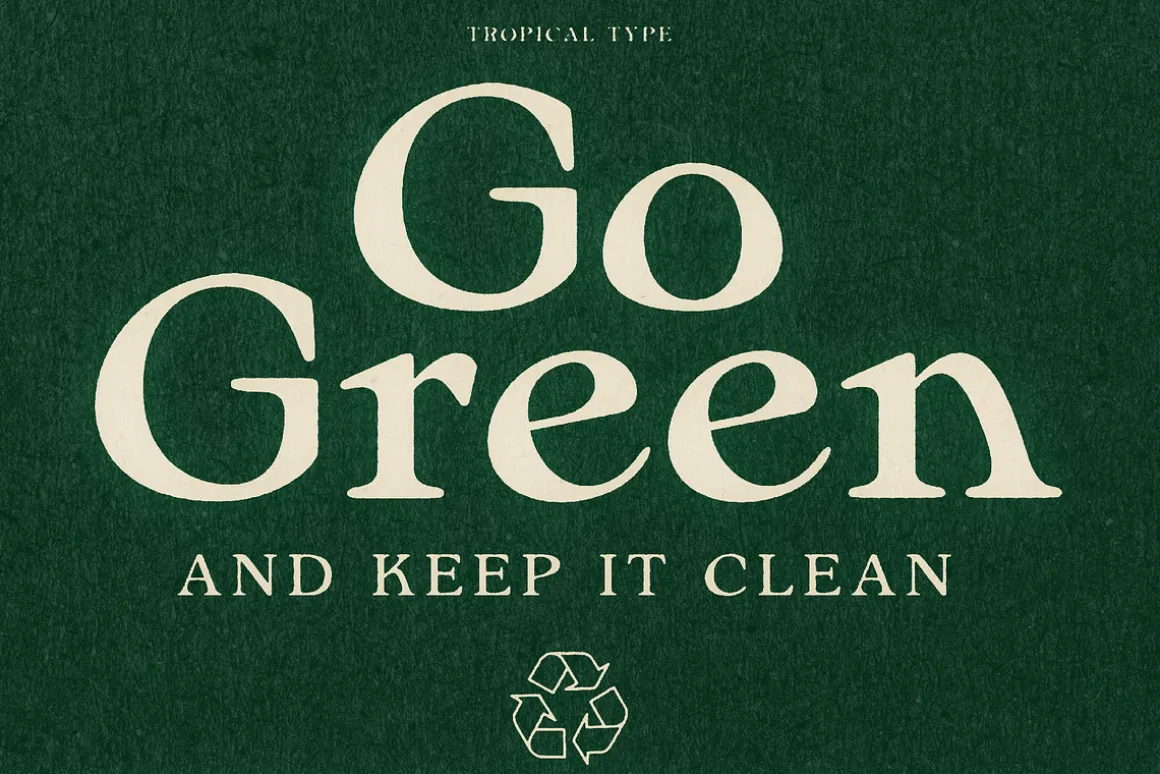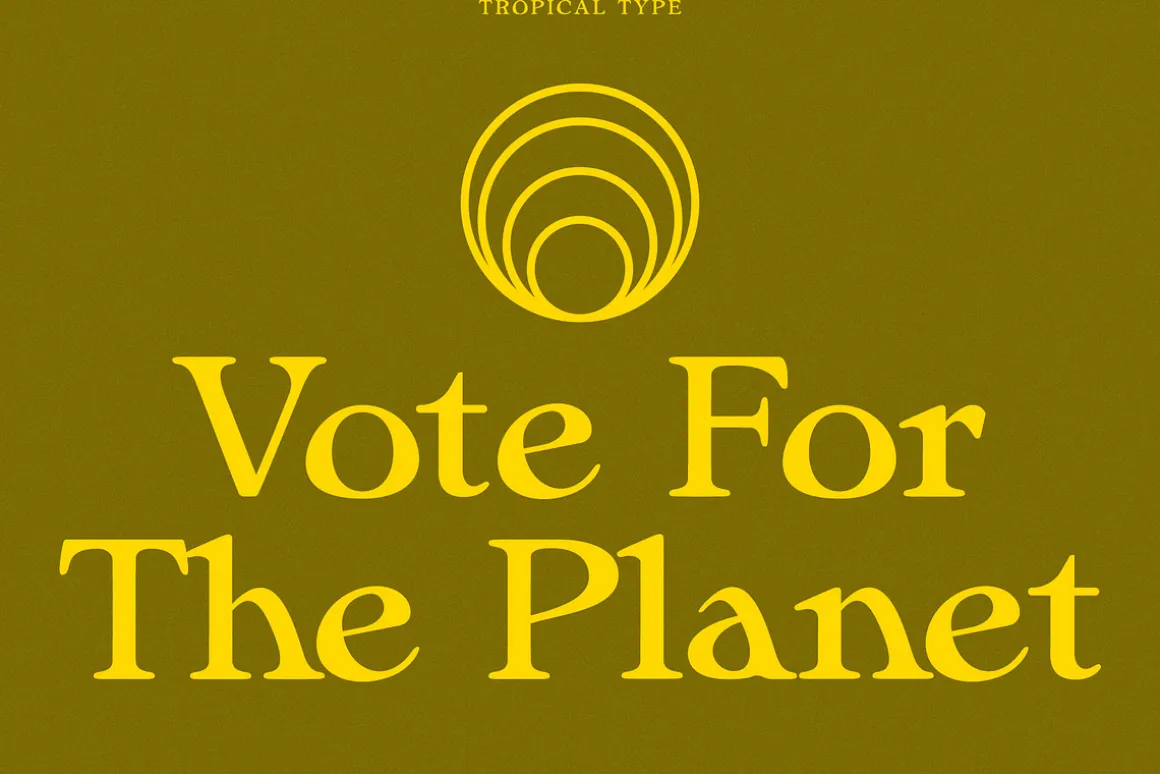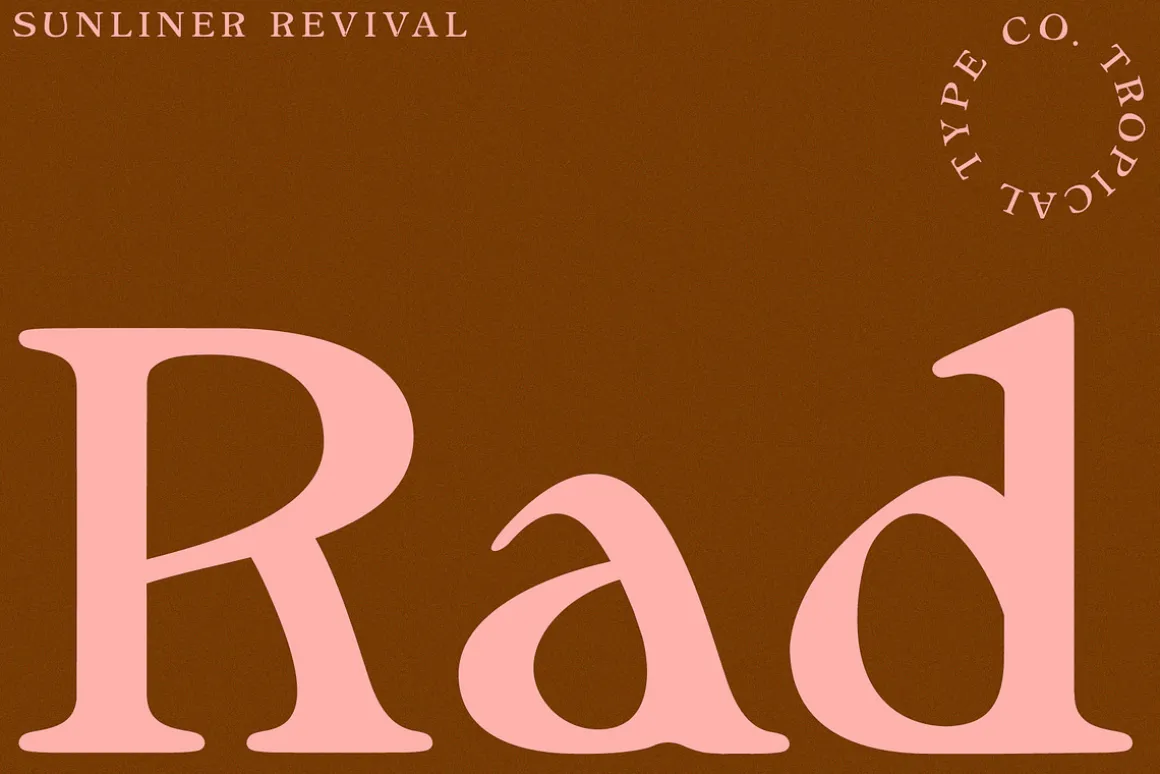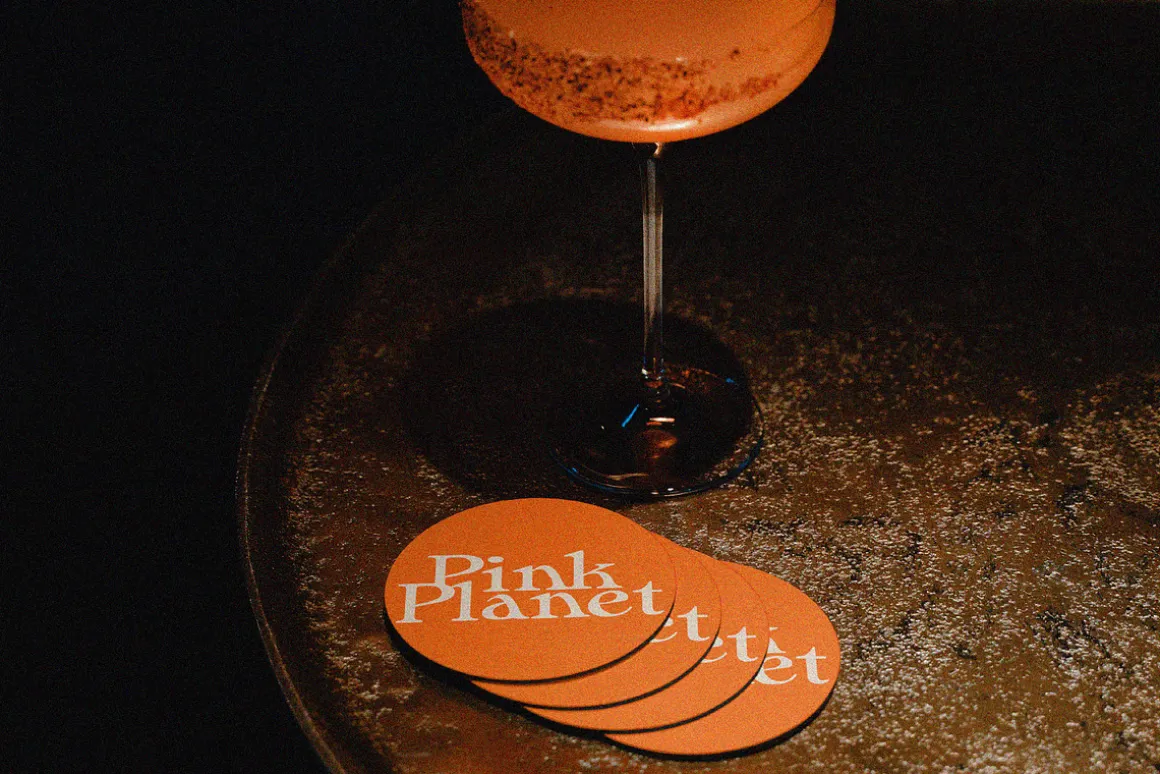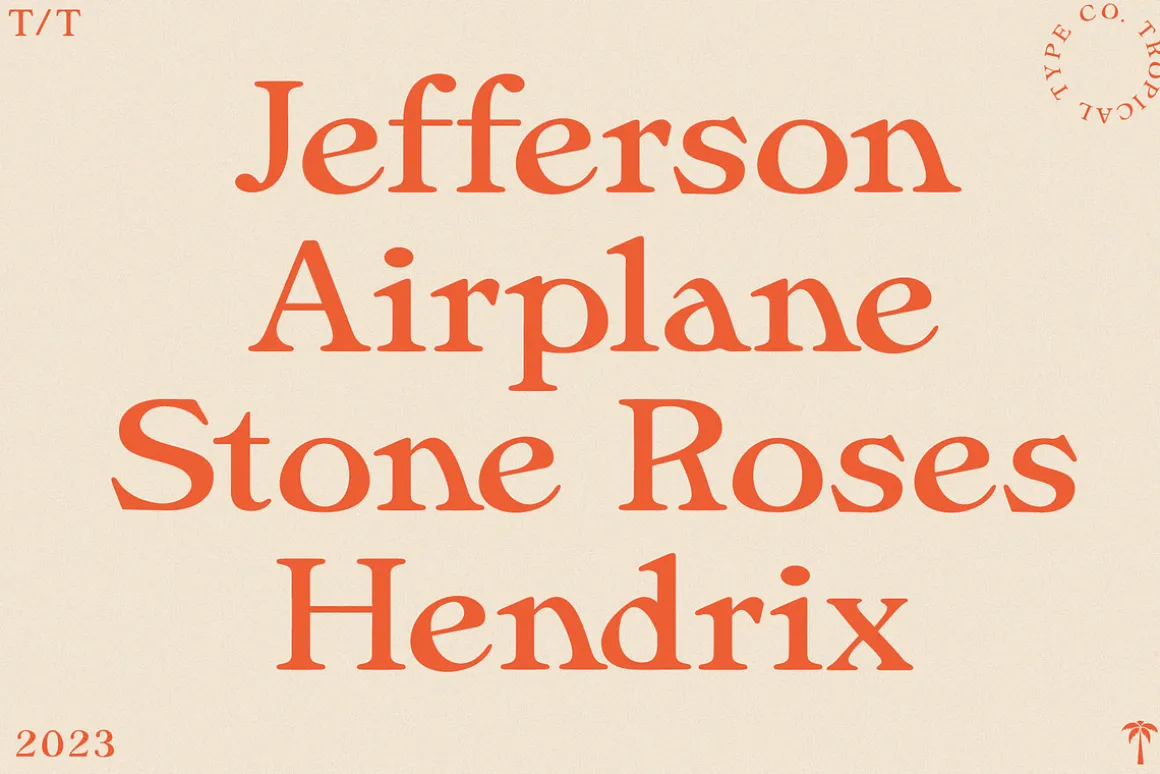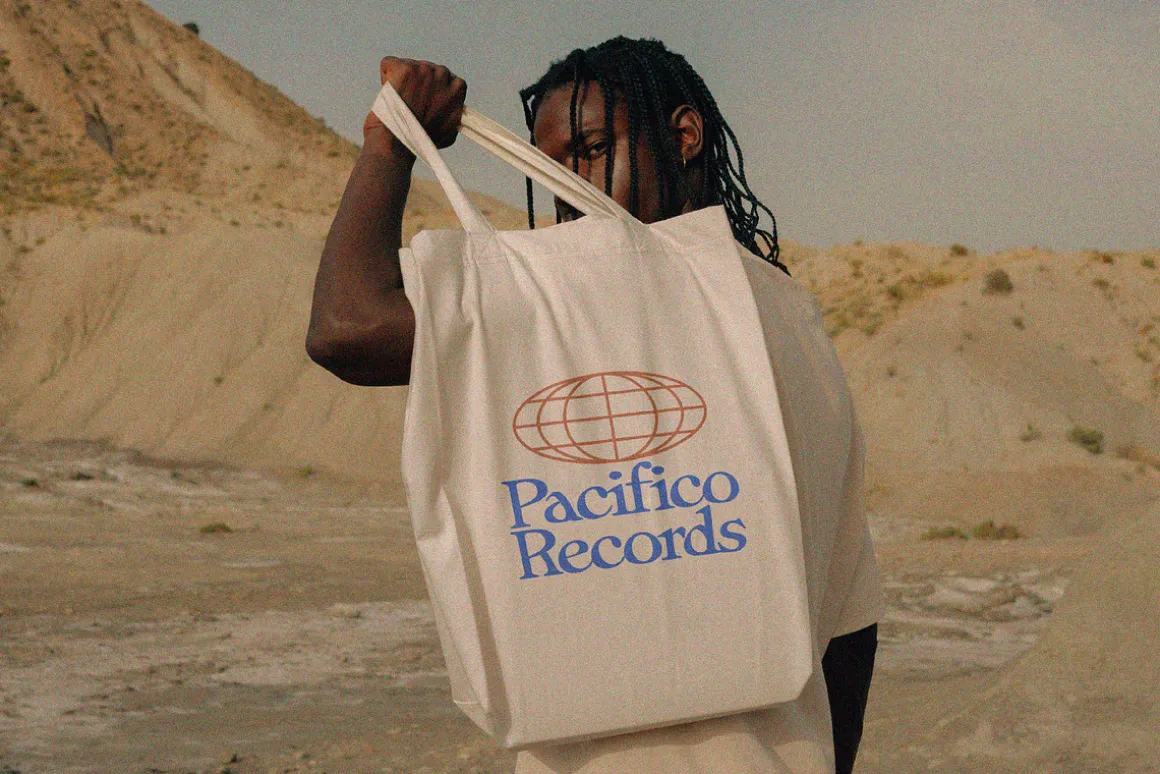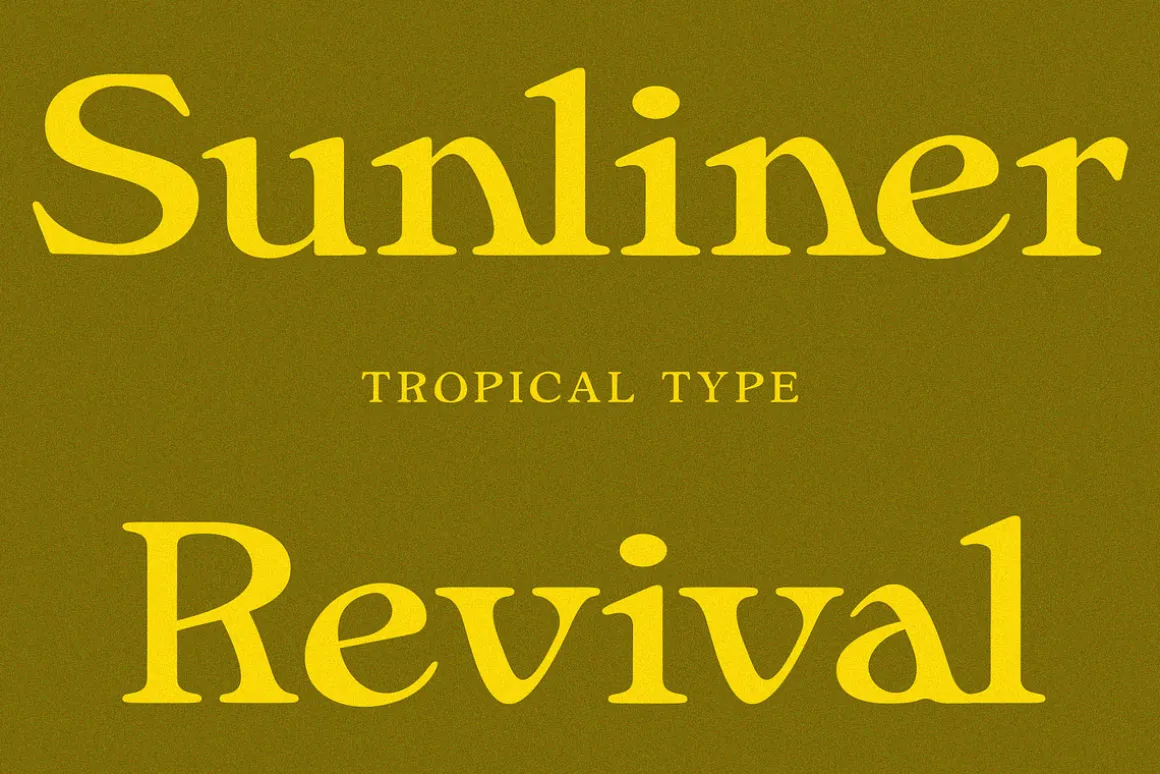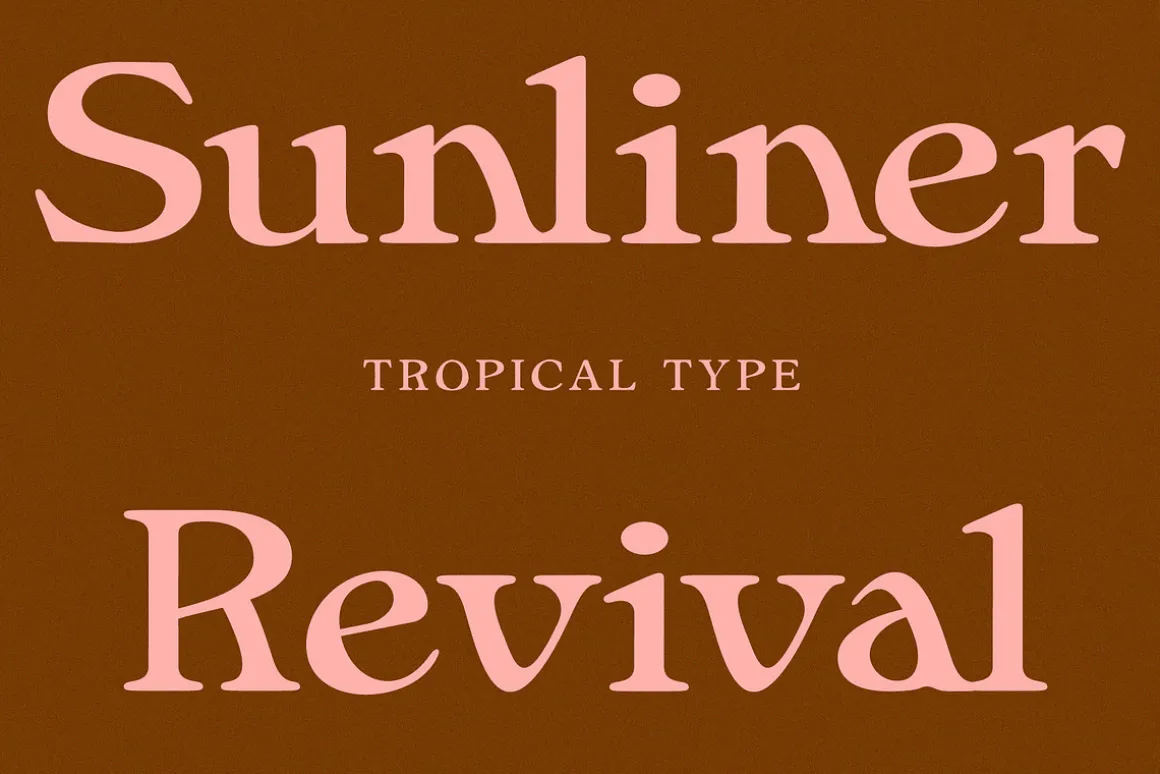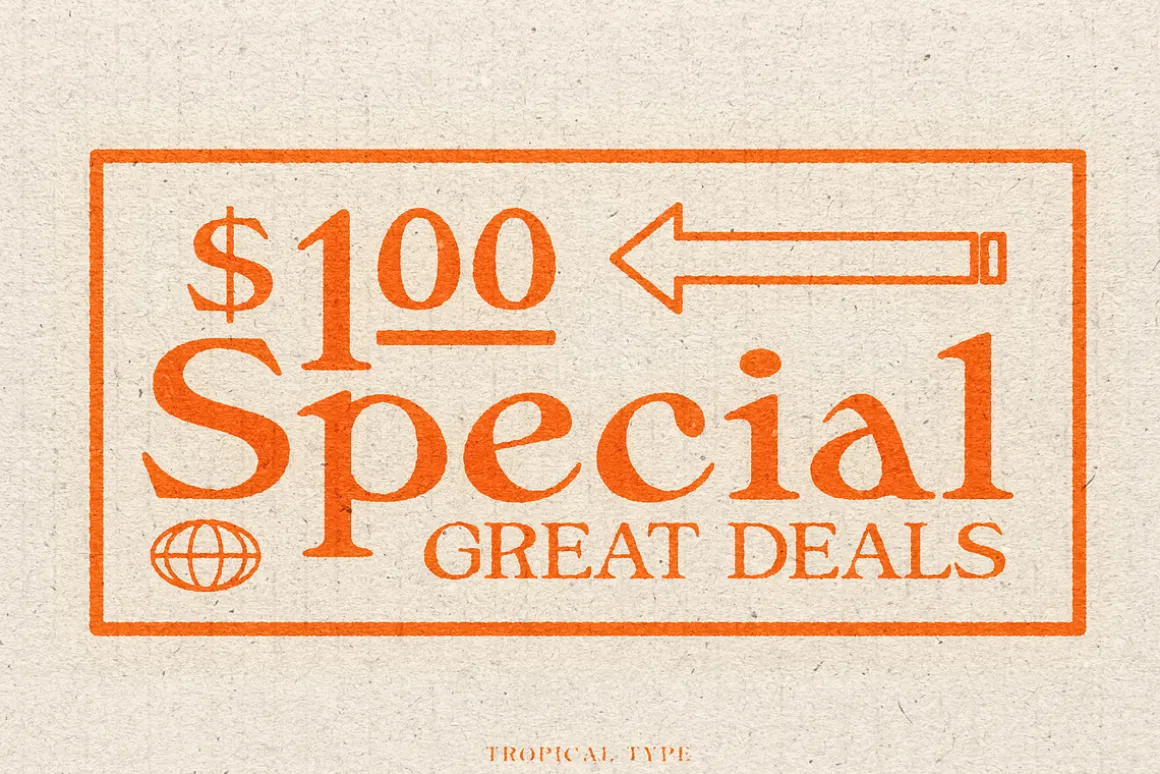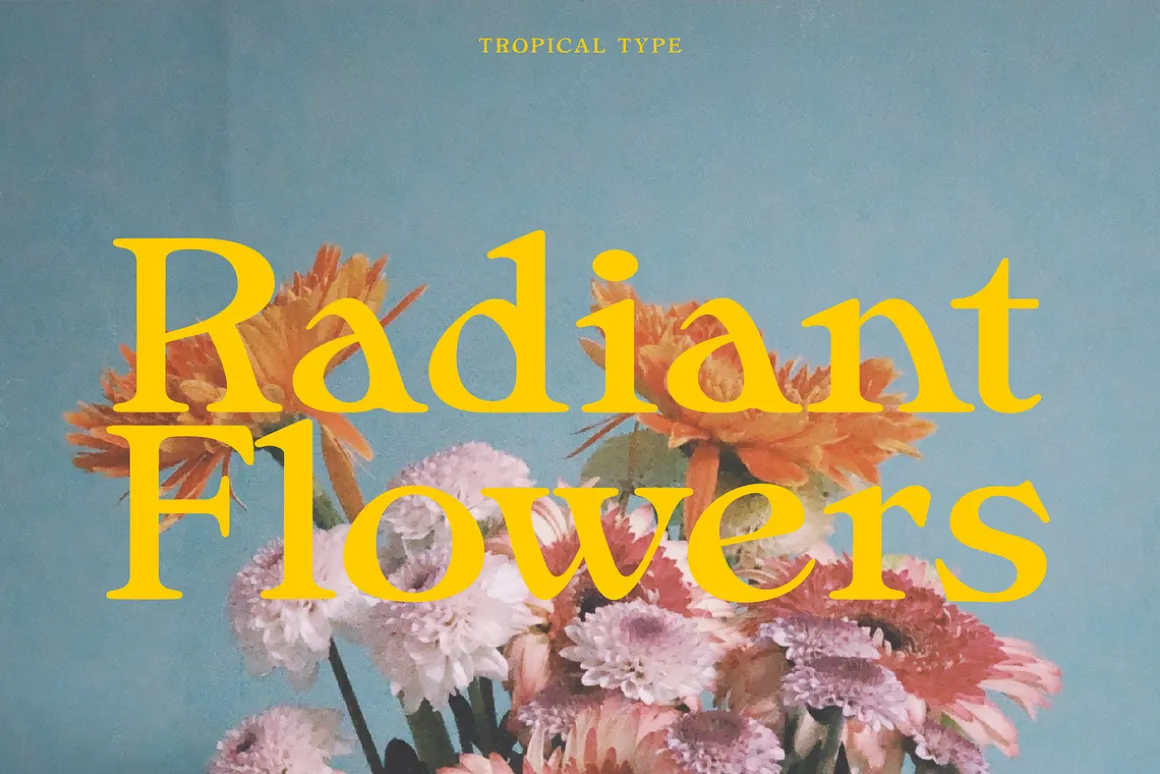
Sunliner is influenced by popular fonts of yesteryear such as Cooper Black, Souvenir and Windsor. The increased contrast adds a subtle modern touch but this font is all about nostalgia. The warm fuzz of a record, the touch of a velvet couch. Coco butter mixed with cigar smoke, you get the idea.